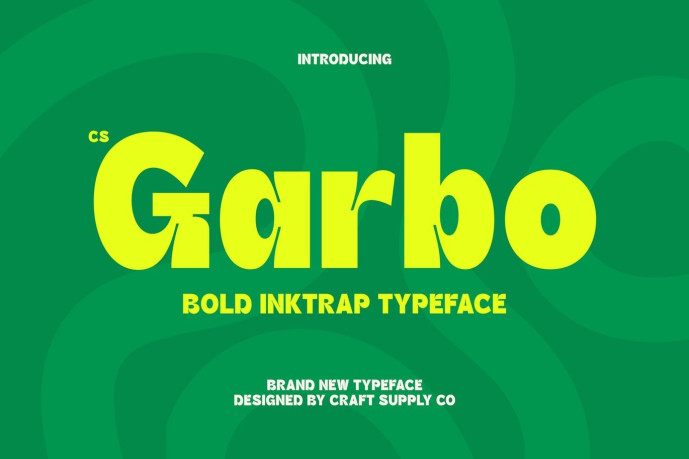
Garbo – Inktrap Font
CS Garbo – Bold Sans Serif Font: Where Clean Precision Meets Expressive Impact Strong Letterforms with Contemporary Confidence This is a bold sans serif font designed to deliver powerful visual impact through its strong, modern letterforms. Its clean construction and confident proportions create a commanding presence that immediately captures attention, making it ideal for designs that require clarity, strength, and contemporary appeal.
Inktrap Details for Enhanced Readability Carefully crafted inktrap details are integrated into the letterforms, adding both functional and aesthetic value. These distinctive cuts improve readability while introducing subtle visual character, creating a refined balance between technical precision and creative expression. The result is a font that remains sharp, clean, and highly legible even at larger display sizes.
Modern Energy with Expressive Personality By combining bold sans serif geometry with playful inktrap features, this font creates a lively and expressive visual identity. Its modern structure communicates professionalism and strength, while the unique details add personality and originality, helping designs feel fresh, engaging, and memorable.
Perfect for Headlines, Branding, and Posters Perfect for headlines, branding projects, posters, advertising campaigns, packaging, social media graphics, merchandise, event promotions, editorial layouts, and contemporary visual identities. Its distinctive bold forms and inktrap details make it ideal for logos, titles, and display typography that seek to communicate confidence, creativity, and modern style.